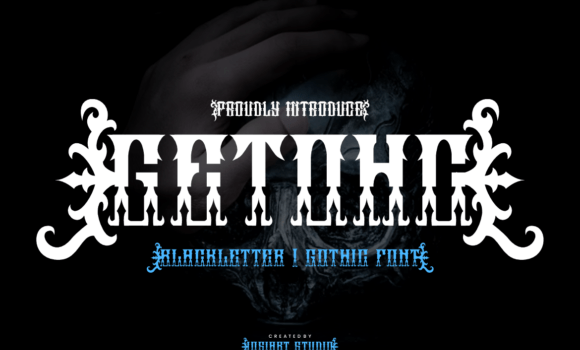
getohc
Getohc Font – Free Download Introduction to Getohc Font Getohc: A Blackletter Gothic Font with a Modern Edge Getohc is a powerful and intricate blackletter gothic font that brings a dramatic, medieval aesthetic to contemporary designs. 📸 Preview Gallery 5